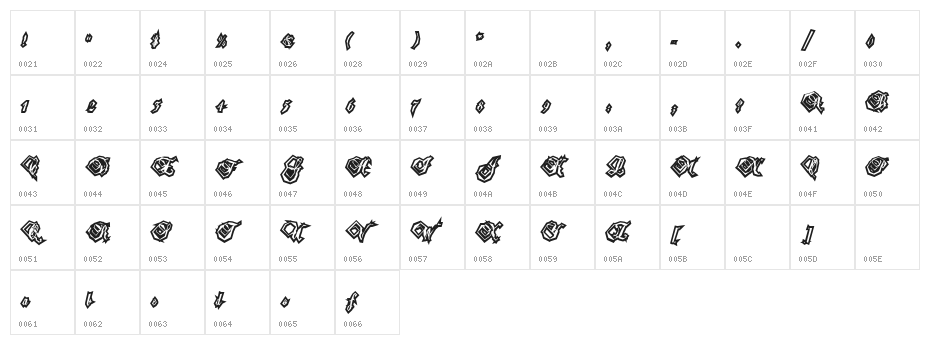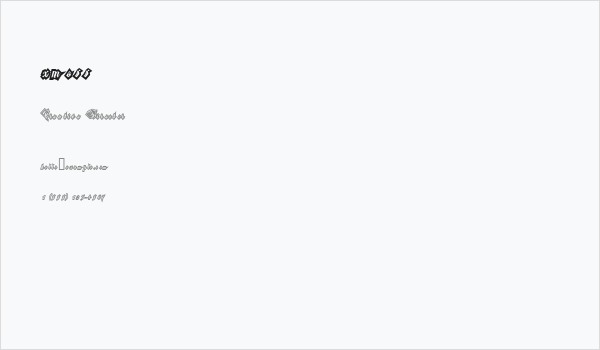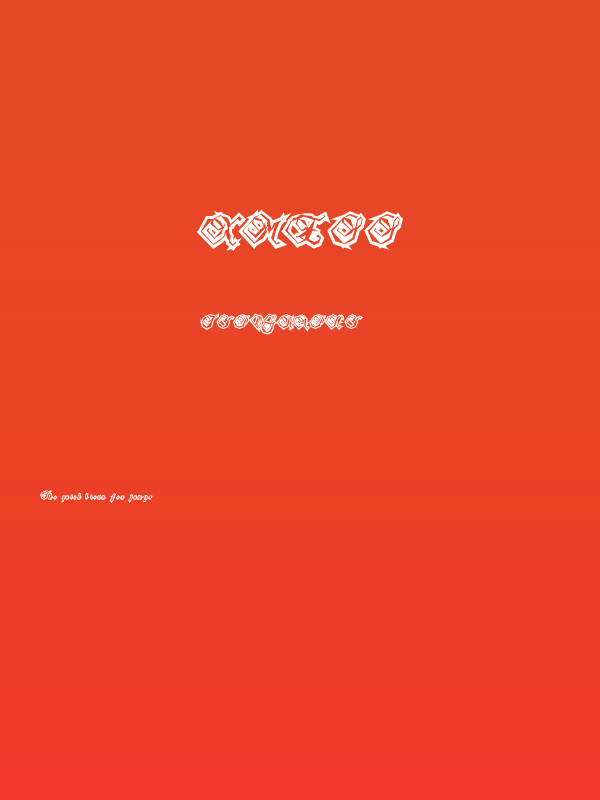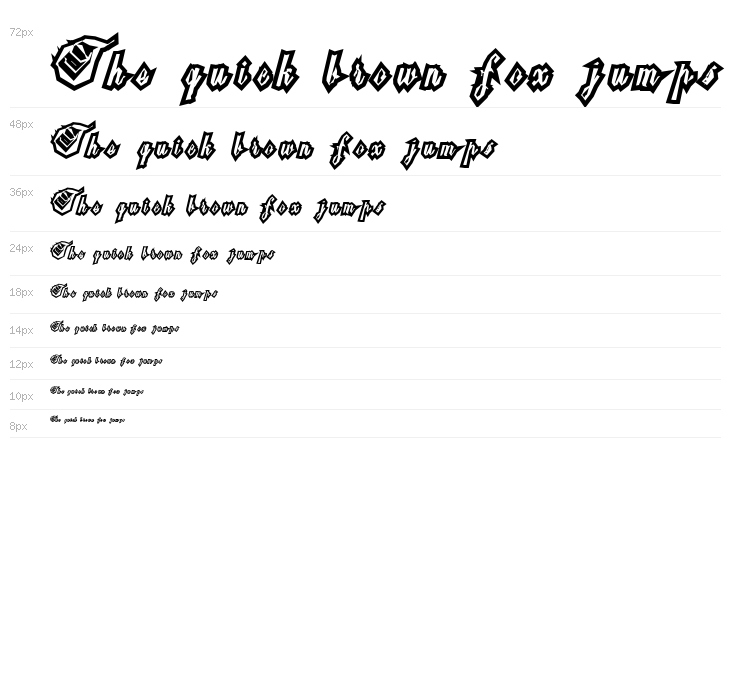
xmess Font
xmess Description
This font features a bold and edgy design with sharp, angular lines and a three-dimensional effect. The characters are heavily stylized, resembling a modern take on traditional blackletter or gothic scripts. Each letter is distinct with a shadow-like outline that enhances its boldness. The uppercase and lowercase letters maintain a consistent style, while the numerals and special characters follow the same dramatic theme. This font is visually striking and commands attention, making it suitable for impactful designs.
| Proposed Projects | Ideal for album covers, posters, branding for edgy or alternative products, and any design requiring a strong visual impact. |